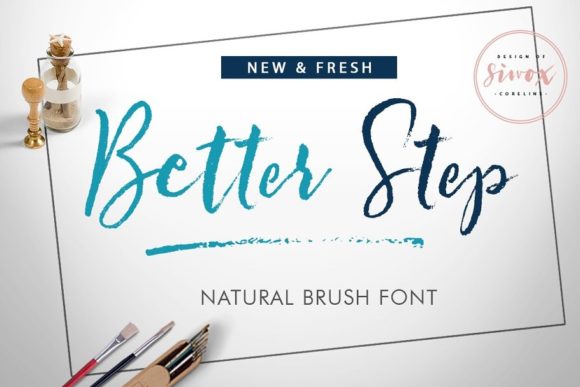
Better Step Font: Elevate Your Designs with Elegance and Class
Are you looking for a font that adds a touch of sophistication and refinement to your designs? Look no further than the Better Step font, a lovely and delicate brushed script font that exudes elegance and class. In this article, we’ll explore the features and benefits of Better Step, and why it’s the perfect choice for designers and crafters seeking a beautiful and refreshing look.
What is Better Step Font?
Better Step is a carefully crafted font designed to bring a sense of luxury and refinement to your designs. This beautiful brushed script font is perfect for creating stunning visual content, from invitations and greeting cards to branding and advertising materials. With its delicate strokes and elegant lettering, Better Step is sure to impress your audience and leave a lasting impression.
Key Features of Better Step Font
- Elegant and Delicate: Better Step boasts a delicate and elegant design, perfect for creating sophisticated and refined visual content.
- Brushed Script Style: The font features a beautiful brushed script style, giving it a personal and handcrafted feel.
- Easy to Use: Better Step is designed to be easy to use, even for those without extensive design experience.
Benefits of Using Better Step Font
So why choose Better Step font for your designs? Here are just a few benefits of using this beautiful font:
- Adds Elegance and Class: Better Step instantly elevates your designs with its elegant and refined style.
- Versatile: The font is versatile and can be used for a wide range of design projects, from invitations and greeting cards to branding and advertising materials.
- Unique and Creative: With its PUA encoding and range of glyphs and ligatures, Better Step allows you to create unique and creative designs that stand out from the crowd.
- Time-Saving: The font is easy to use, saving you time and effort in creating beautiful designs.
Who Can Benefit from Better Step Font?
Better Step font is perfect for a range of designers and crafters, including:
- Graphic Designers: Graphic designers can use Better Step to create stunning visual content for clients, including branding and advertising materials.
- Stationery Designers: Stationery designers can use the font to create beautiful invitations, greeting cards, and other paper crafts.
- Crafters: Crafters can use Better Step to add a touch of elegance and refinement to their handmade projects, such as scrapbooking and journaling.
- Small Business Owners: Small business owners can use the font to create professional and polished marketing materials, including brochures and flyers.
Tips for Using Better Step Font
Here are a few tips for getting the most out of Better Step font:
- Experiment with Different Sizes: Better Step looks great in a range of sizes, from small and delicate to large and bold.
- Pair with Other Fonts: The font pairs well with other fonts, including sans-serif and serif fonts.
- Use for Headings and Titles: Better Step is perfect for headings and titles, adding a touch of elegance and refinement to your designs.
- Don’t Be Afraid to Get Creative: With its PUA encoding and range of glyphs and ligatures, Better Step encourages creativity and experimentation.
| Font Name | Better Step Font |
In conclusion, Better Step font is a beautiful and elegant brushed script font that adds a touch of sophistication and refinement to any design. With its PUA encoding, delicate strokes, and elegant lettering, Better Step is the perfect choice for designers and crafters seeking a beautiful and refreshing look. Whether you’re creating invitations, branding materials, or handmade crafts, Better Step is sure to impress your audience and leave a lasting impression.